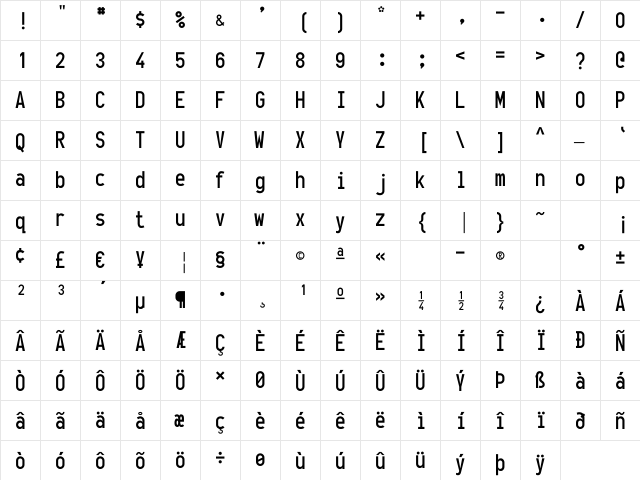
OneSlot Regular
| Foundry | Objets Dart |
| Designer | Darren Rigby |
Design Context for OneSlot Typeface
OneSlot offers clean, dependable letterforms without strong stylistic allegiance, making it a practical choice for designers who need flexibility.